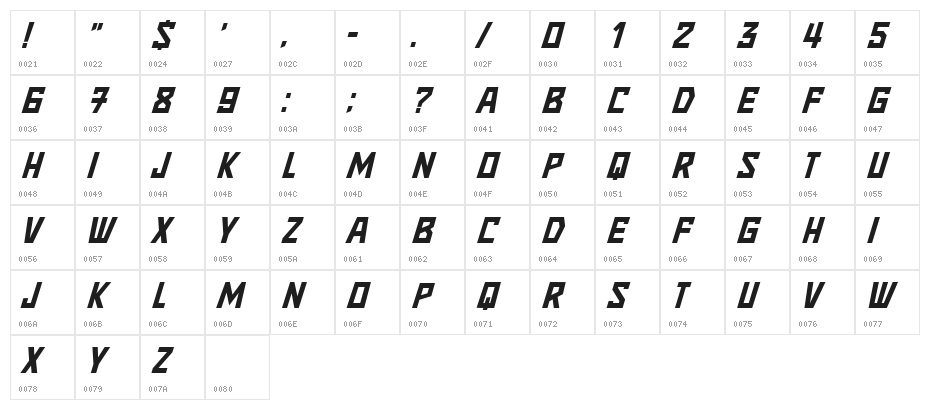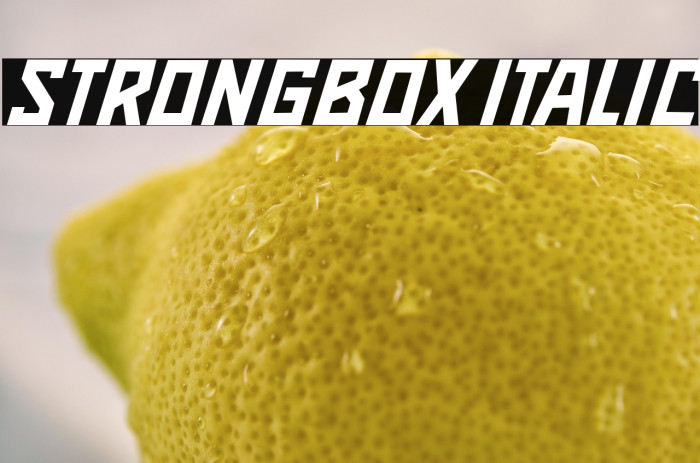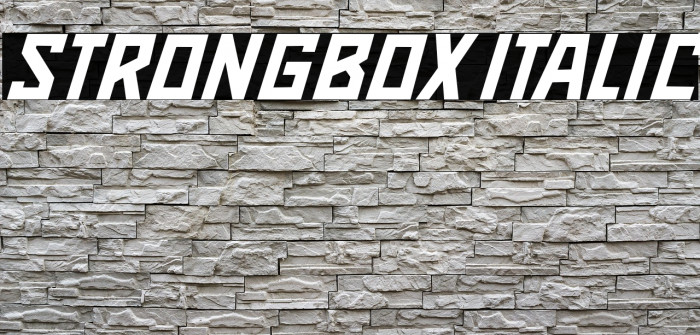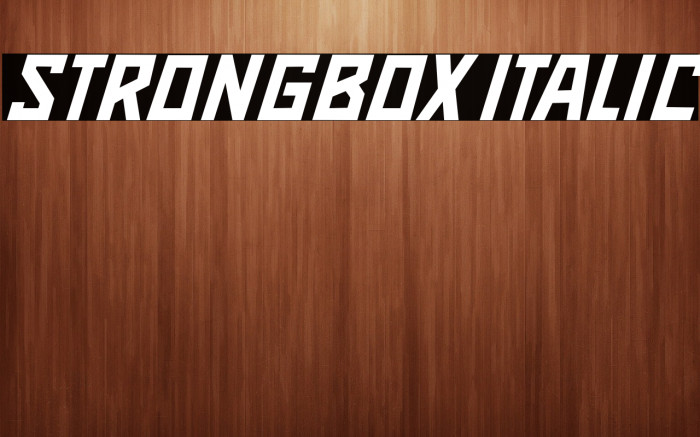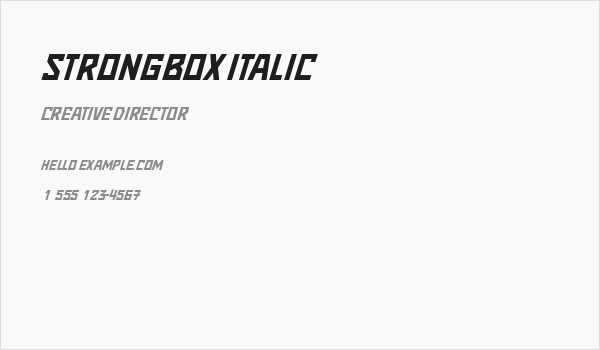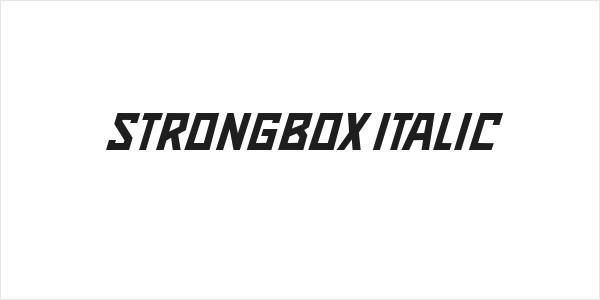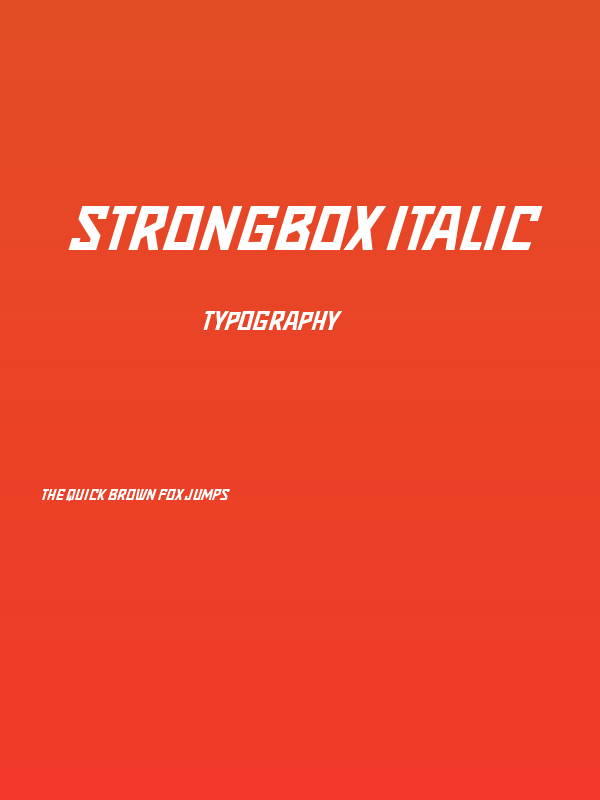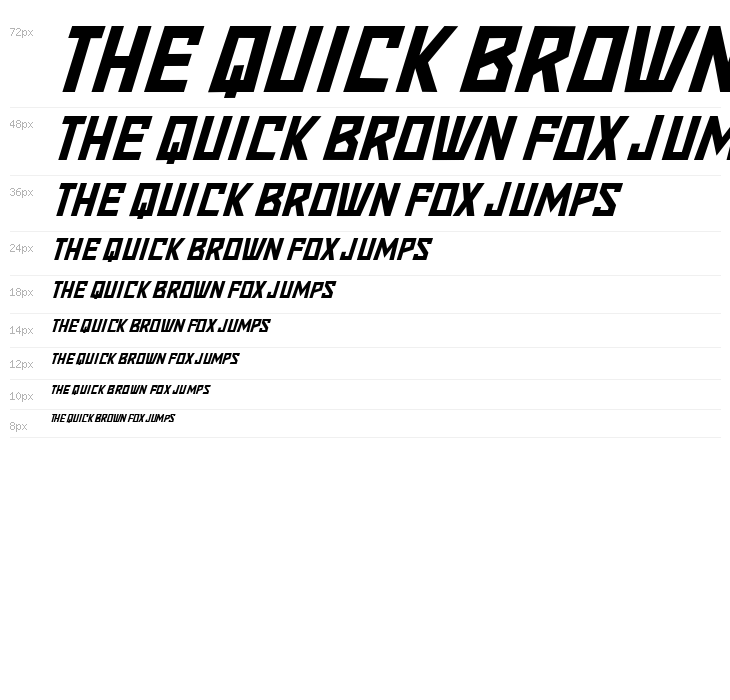
Strongbox Italic Font
Strongbox Italic Description
This font features a bold, italicized style with a strong geometric structure. The characters are angular and dynamic, giving a sense of movement and energy. The uppercase and lowercase letters maintain a consistent slant, enhancing the italic effect. Numbers and special characters follow the same design principles, ensuring uniformity across all glyphs. The font's boldness and angularity make it stand out, suitable for projects that require a modern and assertive look.
| Proposed Projects | Ideal for sports branding, dynamic posters, video game titles, and modern advertising campaigns. |